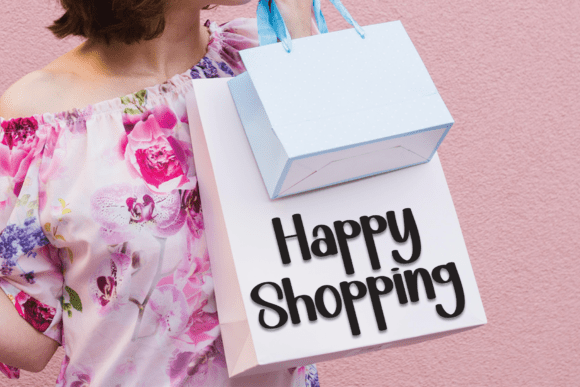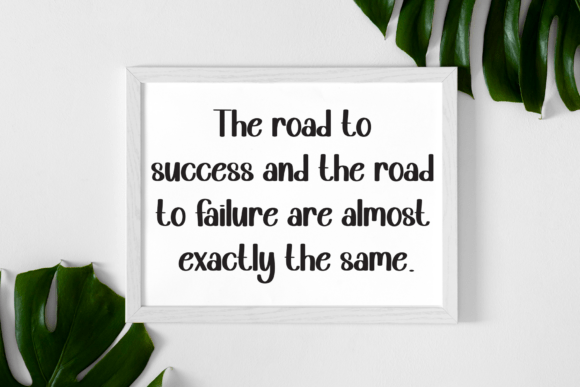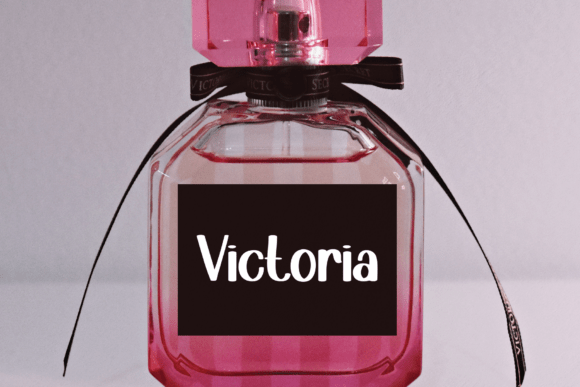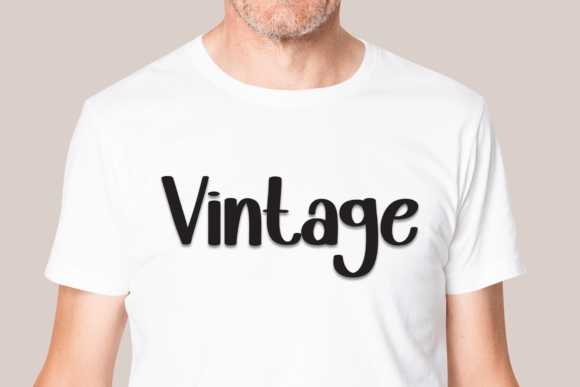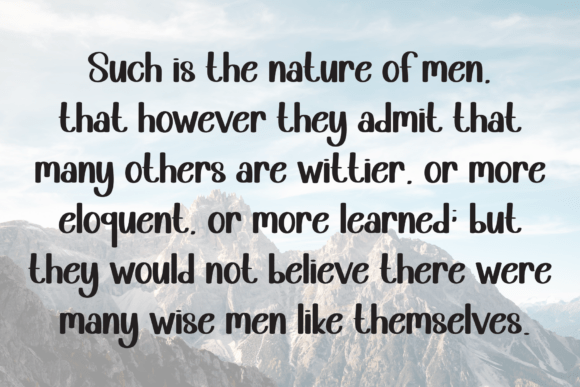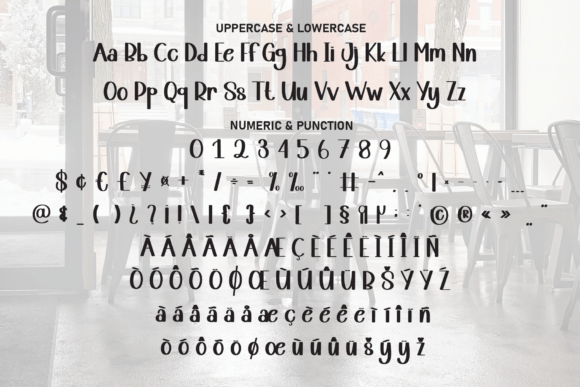
Cafe Morning Font: The Perfect Blend of Sweetness and Friendliness
Are you looking for a font that can add a touch of fun and personality to your designs? Look no further than Cafe Morning Font, a delightful and personable handwritten display font that’s perfect for a variety of creative projects. In this article, we’ll introduce you to the charming world of Cafe Morning Font and explore its many uses and benefits.
A Font that Brings Life to Your Designs
Cafe Morning Font is a beautiful, handwritten display font that’s designed to bring a dash of fun and personality to your designs. Its carefree appeal turns any ordinary text into an extraordinary work of art, making it perfect for wedding invitations, greeting cards, and any other design that needs a touch of whimsy. Whether you’re a designer, crafter, or DIY enthusiast, Cafe Morning Font is sure to inspire your creativity and help you bring your vision to life.
The Perfect Blend of Sweetness and Friendliness
So, what makes Cafe Morning Font so special? For starters, it’s a perfect blend of sweetness and friendliness. The font’s charming letters and playful curves evoke a sense of warmth and approachability, making it perfect for designs that need a personal touch. Whether you’re creating a wedding invitation or a greeting card, Cafe Morning Font is sure to make your recipient feel special.
Cafe Morning Font is a versatile font that can be used in a variety of creative projects. Here are just a few ideas to get you started:
- Signs and posters
Why Choose Cafe Morning Font?
So, why choose Cafe Morning Font over other fonts? Here are just a few reasons:
- Unique and playful**: Cafe Morning Font is a one-of-a-kind font that’s sure to stand out from the crowd.
- Easy to read**: Despite its playful curves and letters, Cafe Morning Font is easy to read and understand.
- Versatile**: Cafe Morning Font can be used in a variety of creative projects, from wedding invitations to social media graphics.
- High-quality**: Cafe Morning Font is a high-quality font that’s designed to look great in any design.
Adding an Element of Fun to Your Designs
One of the best things about Cafe Morning Font is its ability to add an element of fun to your designs. Whether you’re creating a wedding invitation or a greeting card, Cafe Morning Font is sure to bring a smile to your recipient’s face. Its playful curves and letters evoke a sense of whimsy and playfulness, making it perfect for designs that need a touch of humor.
Tips for Using Cafe Morning Font
Here are a few tips for using Cafe Morning Font in your designs:
- Use it sparingly**: Cafe Morning Font is a bold font that’s best used sparingly. Try using it for headings or titles, and a simpler font for body text.
- Experiment with colors**: Cafe Morning Font looks great in a variety of colors, from bright and bold to soft and pastel.
- Pair it with other fonts**: Cafe Morning Font can be paired with other fonts to create a unique and interesting design.
In conclusion, Cafe Morning Font is a delightful and personable handwritten display font that’s perfect for a variety of creative projects. Its carefree appeal and playful curves evoke a sense of whimsy and fun, making it perfect for designs that need a touch of personality. Whether you’re a designer, crafter, or DIY enthusiast, Cafe Morning Font is sure to inspire your creativity and help you bring your vision to life.